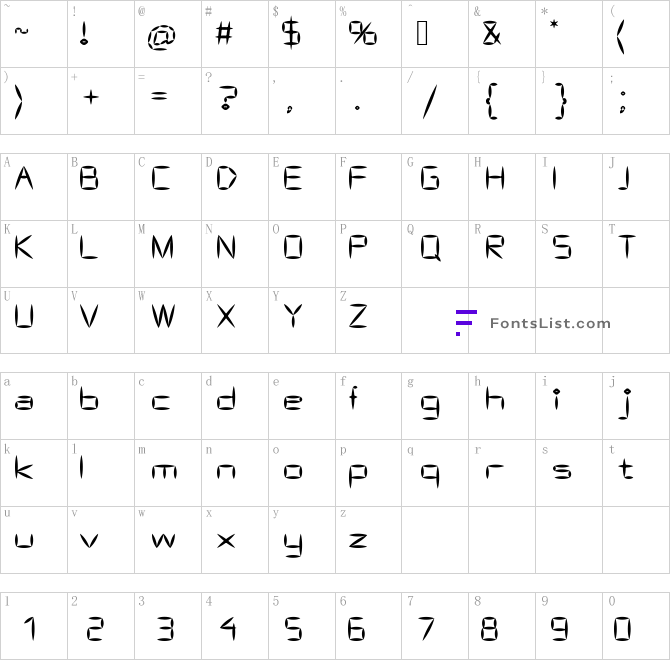
- Font Name:AS Bascalc
AS-Bascalc-Medium.ttf is a very beautiful artistic font, AS-Bascalc-Medium.ttf is widely used in the design and printing of various books and pictures,AS-Bascalc-Medium.ttf has a strong visual impact,AS-Bascalc-Medium.ttf is a commonly used font in newspapers, magazines and books, and is used in posters, e-commerce Poster design, store design, logo design, font design and other fields.AS-Bascalc-Medium.